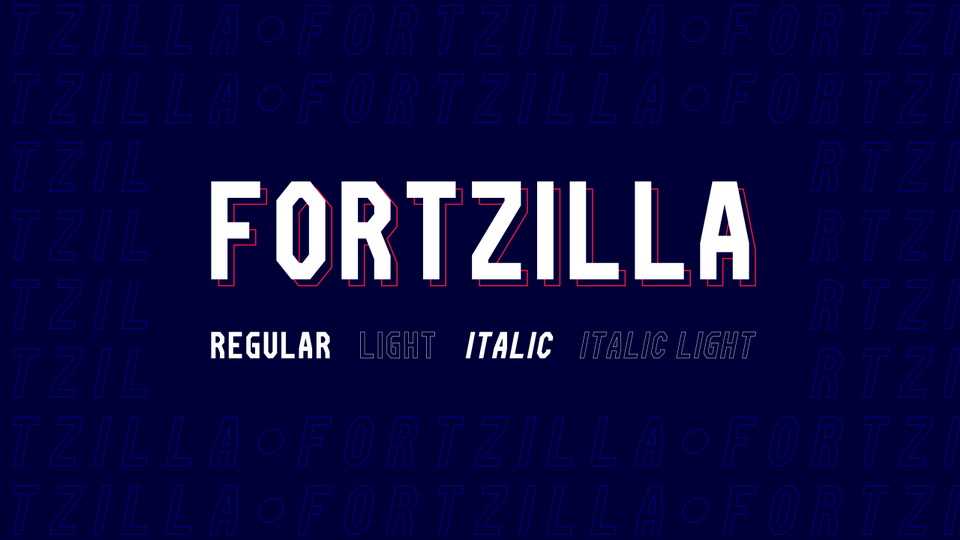
Download Fortzilla font, a powerful and versatile display typeface with four styles. Fortzilla is perfect for logotypes, tech branding, social media edits, posters, apparel design, magazine headlines, labels and so much more.